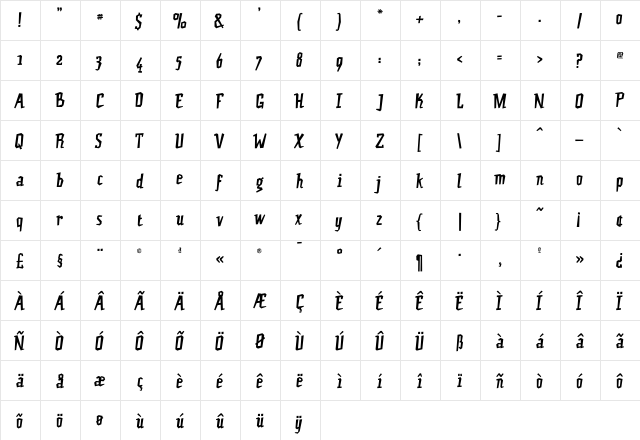
JacqueRegular Regular
Design Context for JacqueRegular Typeface
JacqueRegular is a composed and adaptable typeface that performs quietly and consistently across a wide range of design contexts.